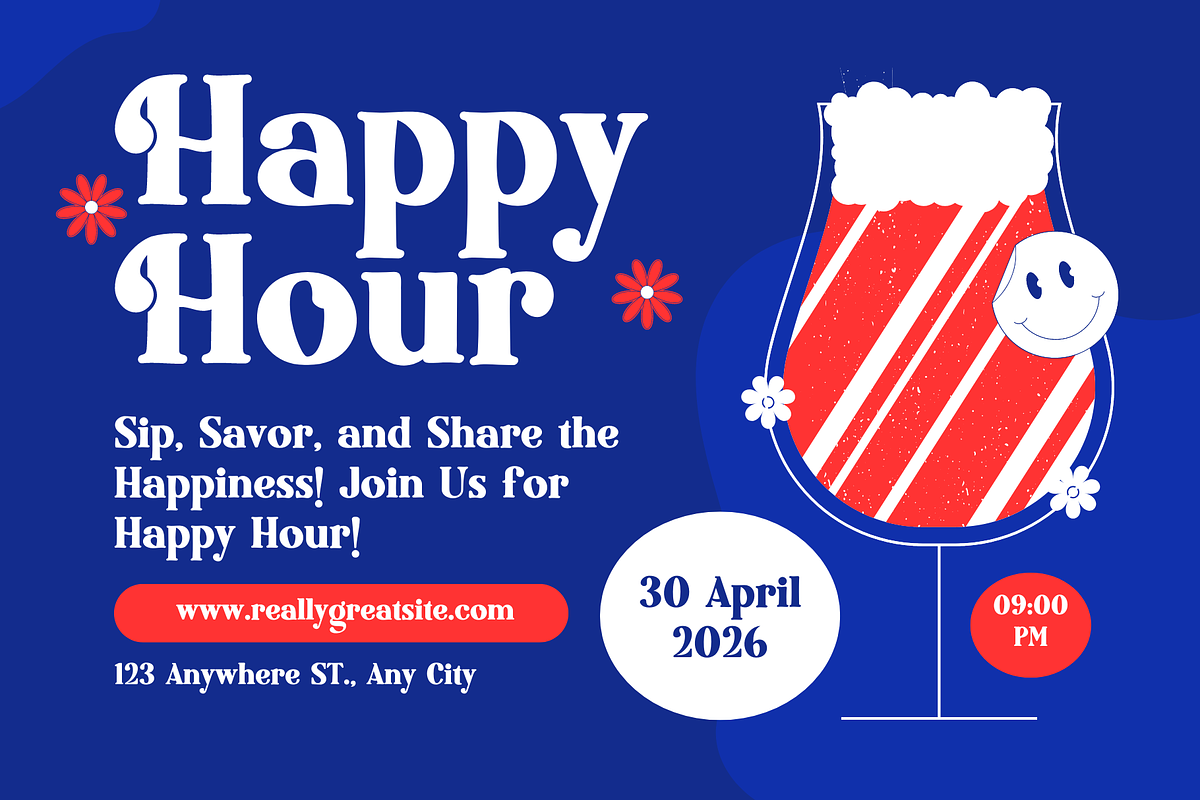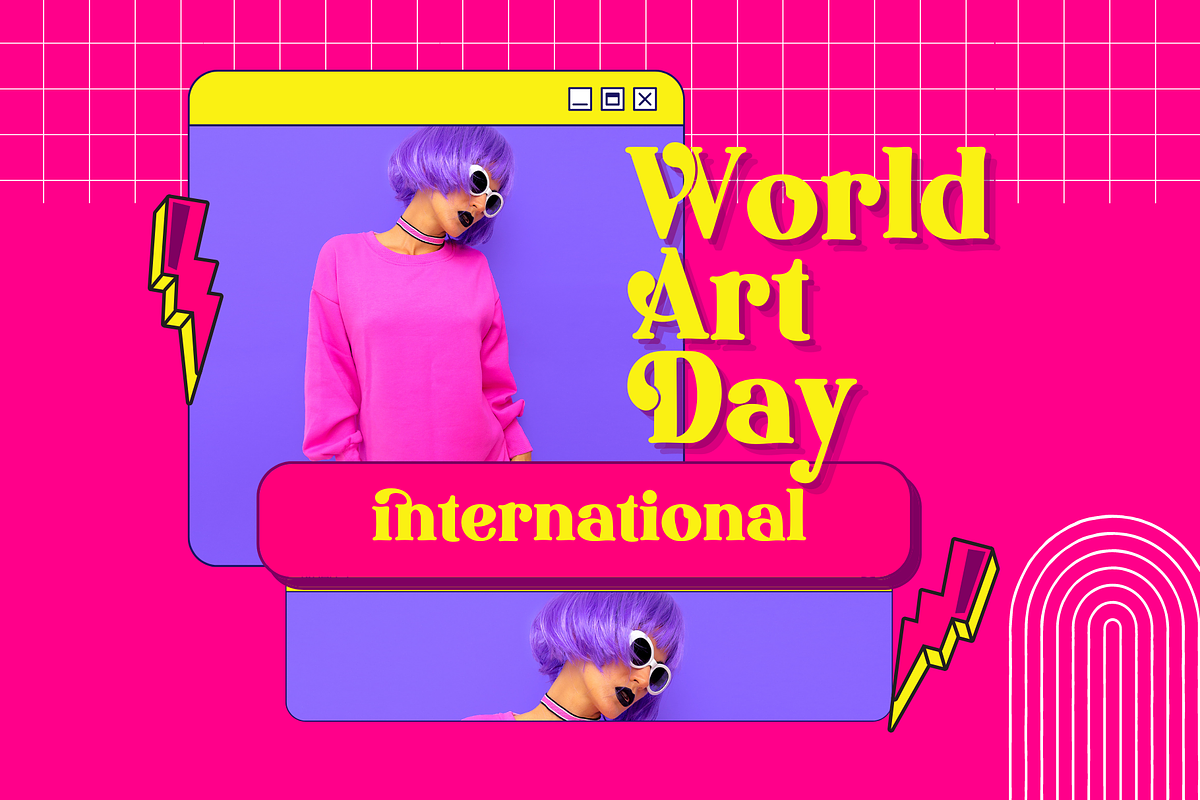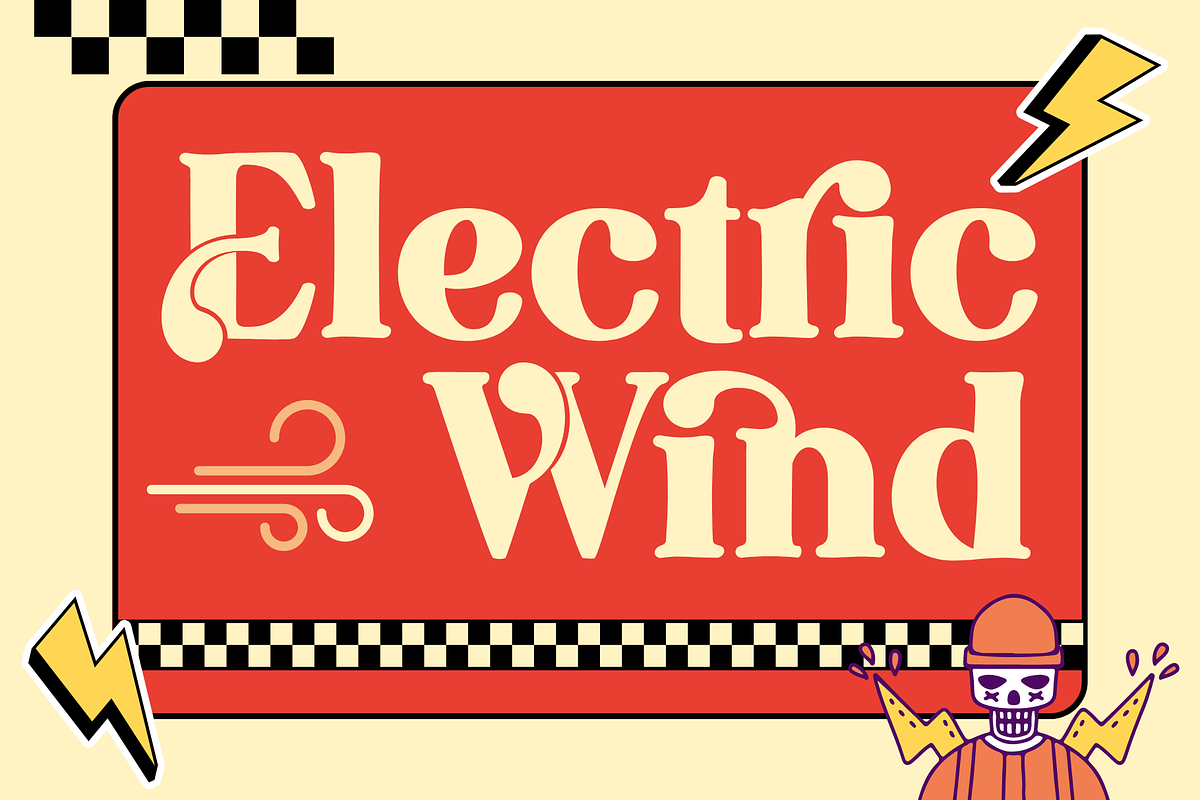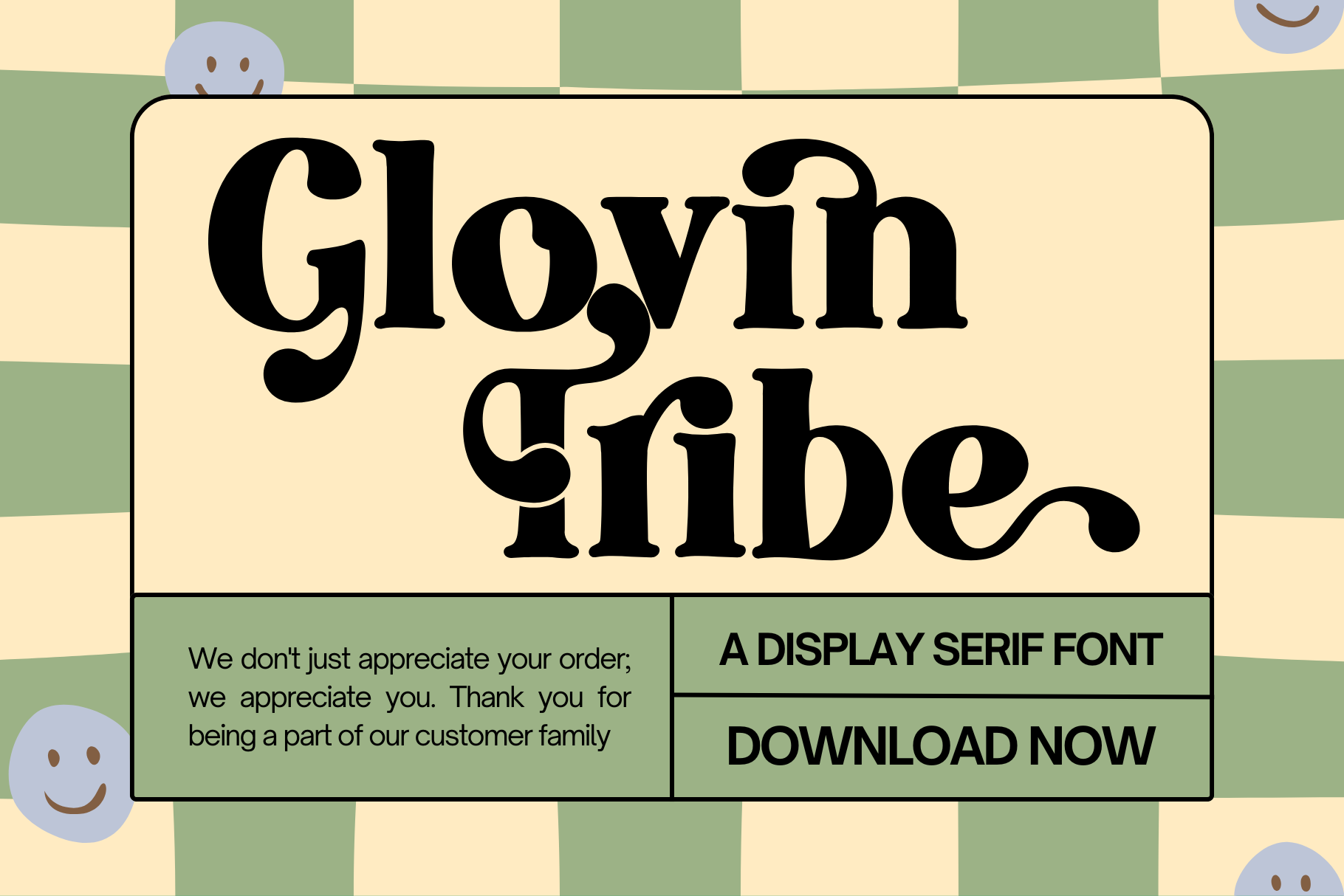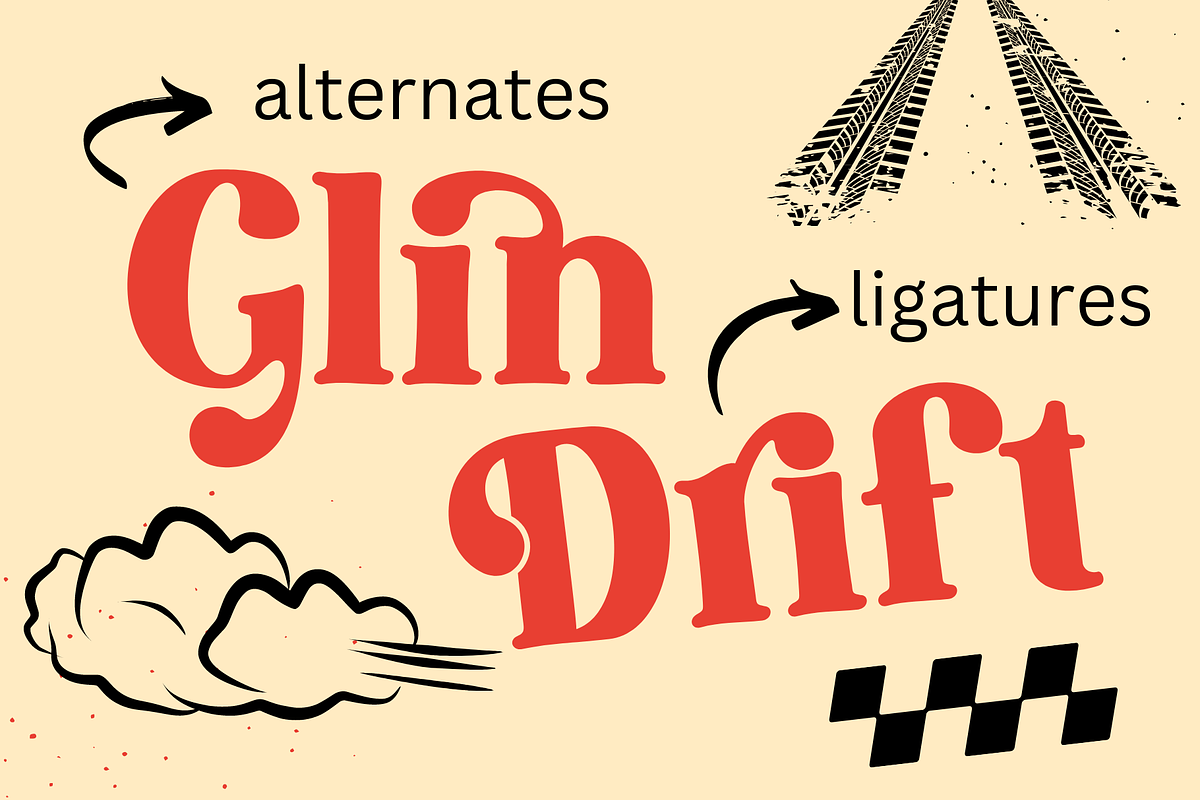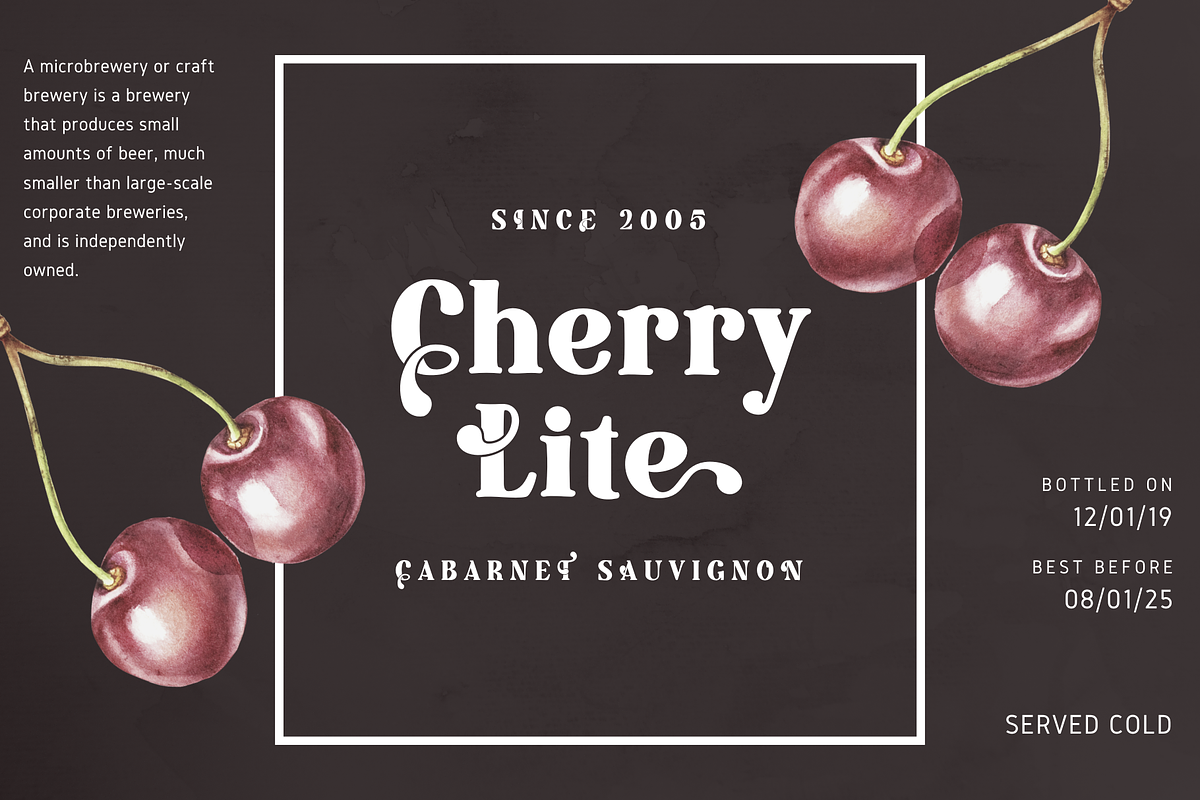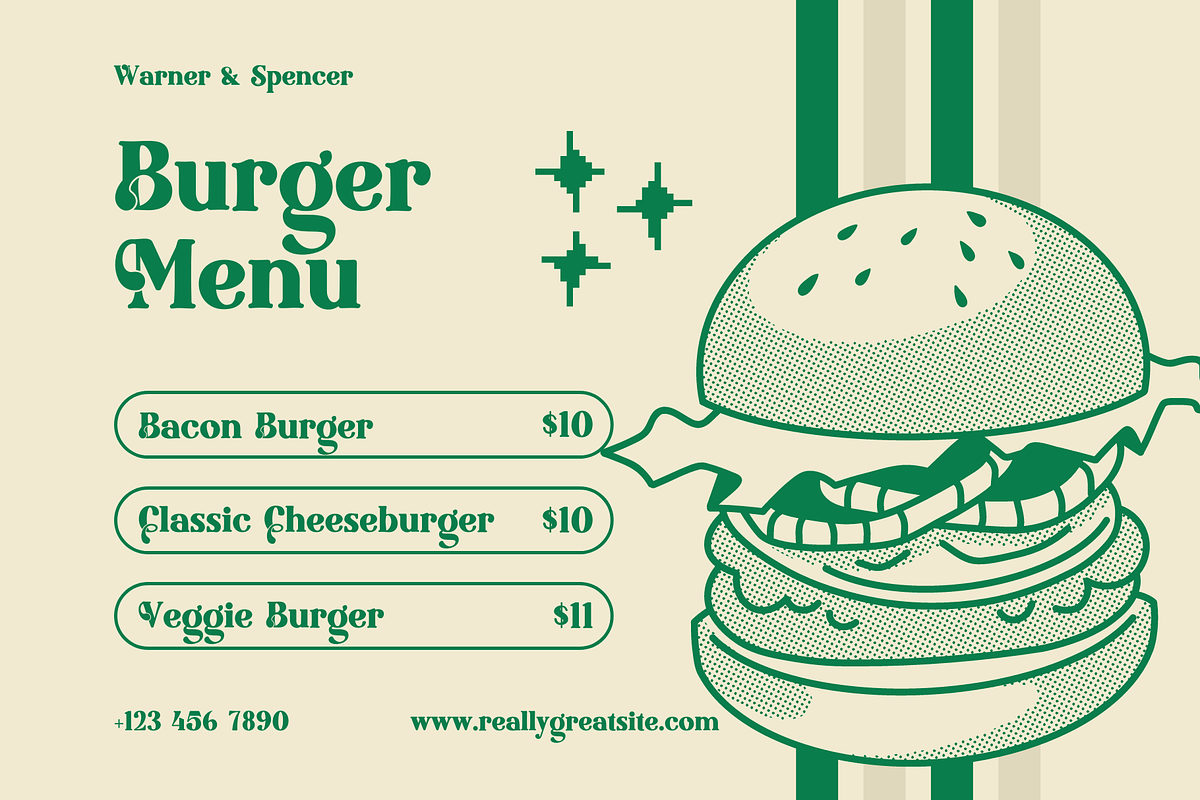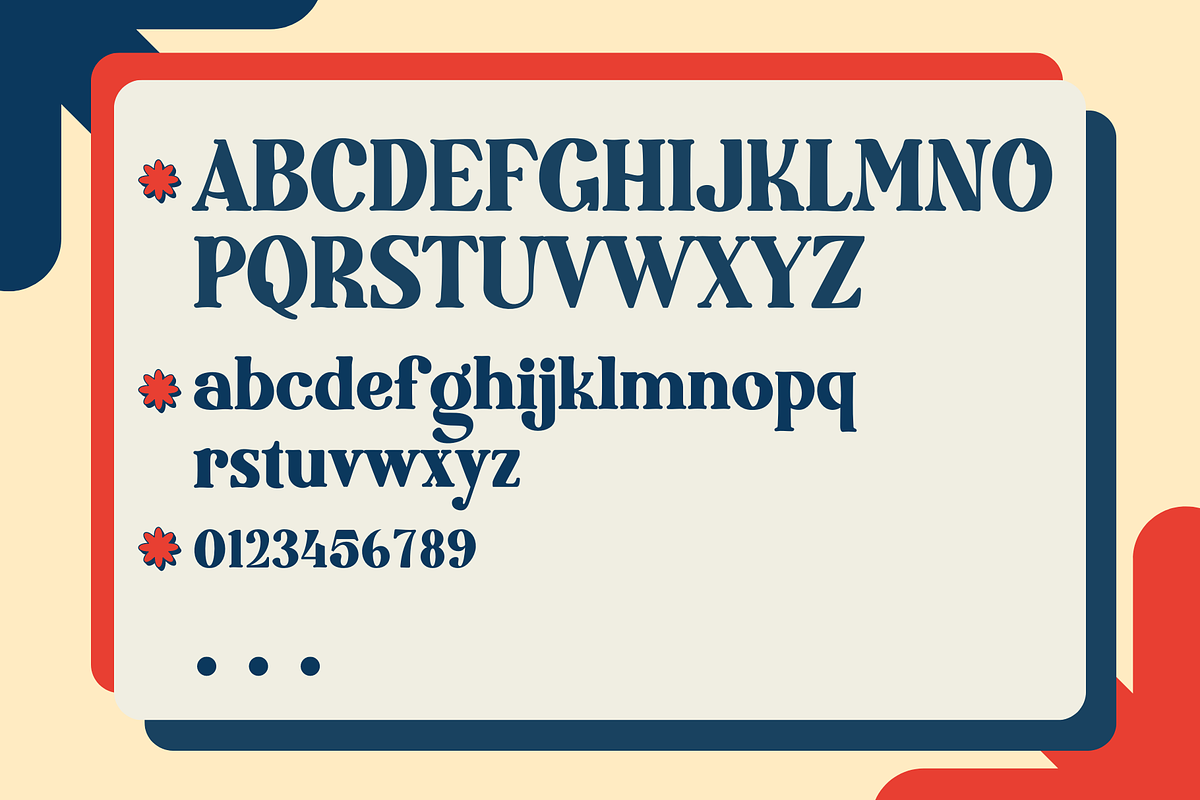
Glovin Tribe - Modern Display Font
GLOVIN TRIBE is a serif typeface with natural ligatures and alternates, offering a blend of modern and classic appeal. This font combines traditional elements with contemporary touches, creating an elegant and charming style. The smooth curves and proportional lines make GLOVIN TRIBE an ideal choice for a variety of designs, including beauty projects, elegant crafts, layout designs, ad branding, and design templates. Whether used for personal or commercial projects, this font delivers a sophisticated and professional look. With calligraphic influences, each stroke of the font adds a refreshing artistic nuance. If you want to elevate your graphic design projects to the next level, GLOVIN TRIBE is the perfect choice that you will love